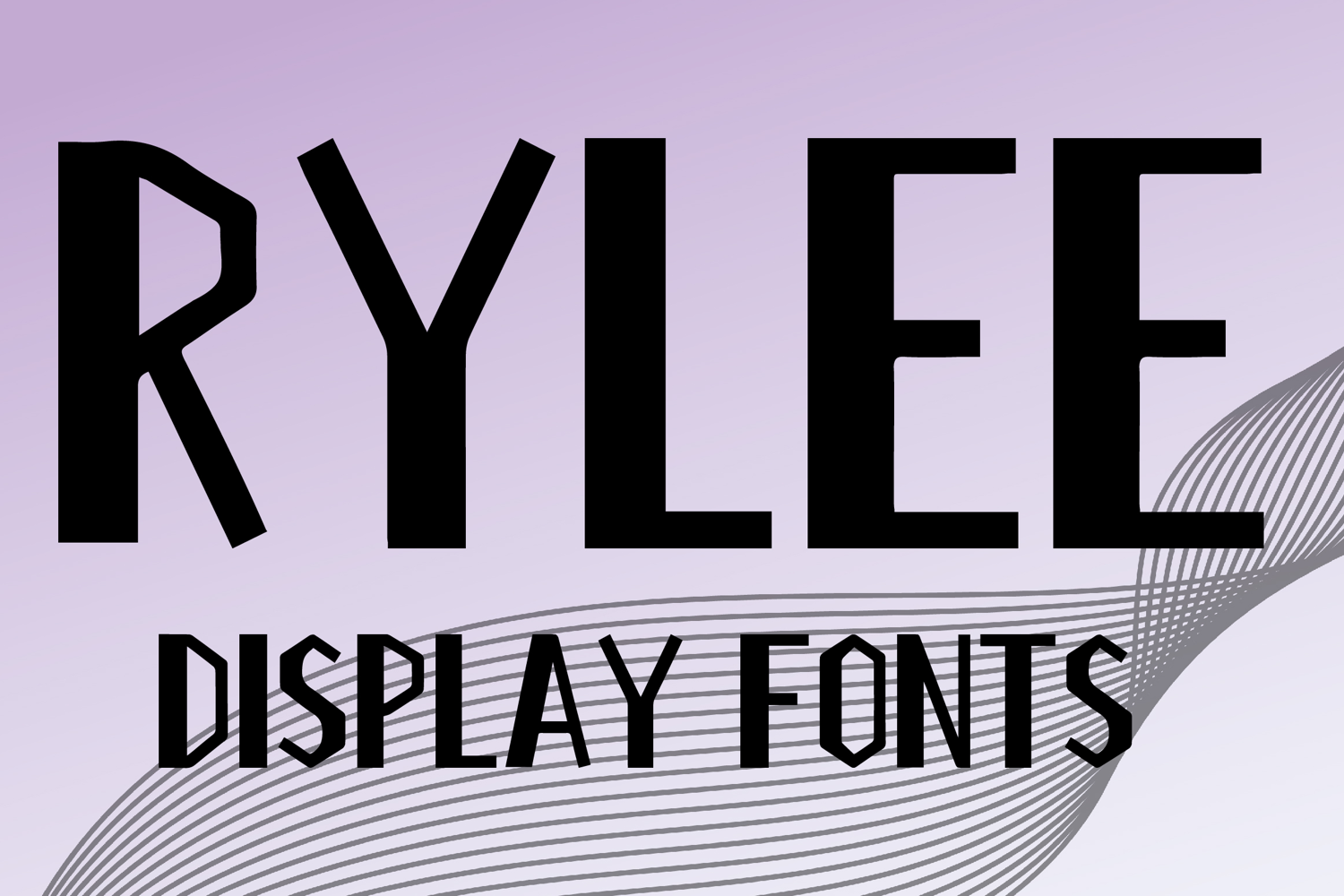
RYLEE
RYLEE is a bold display font with a tall condensed style and strong modern character. Its uppercase letterforms feature thick vertical strokes, clean angular edges, and a structured geometric look that creates a sleek, powerful, and eye-catching statement. Designed with uppercase letters A–Z and numbers 0–9, RYLEE is perfect for branding, posters, packaging, logos, headlines, and social media graphics that need a bold and memorable presence.